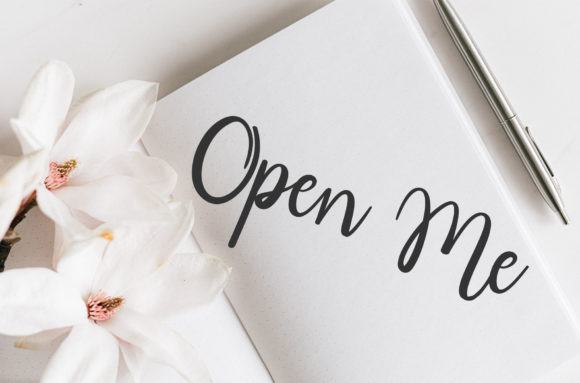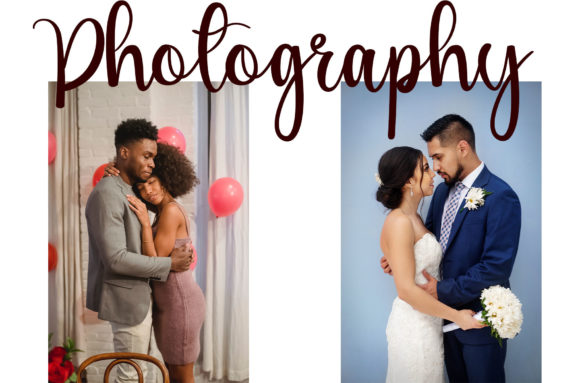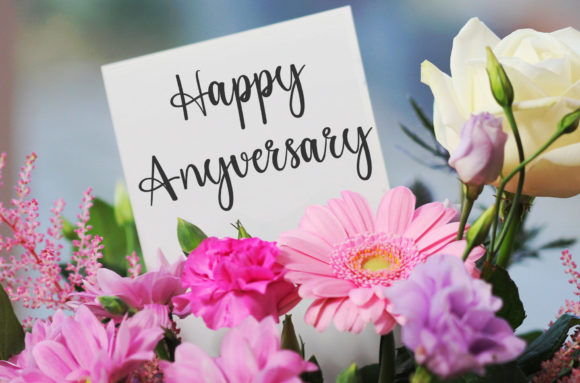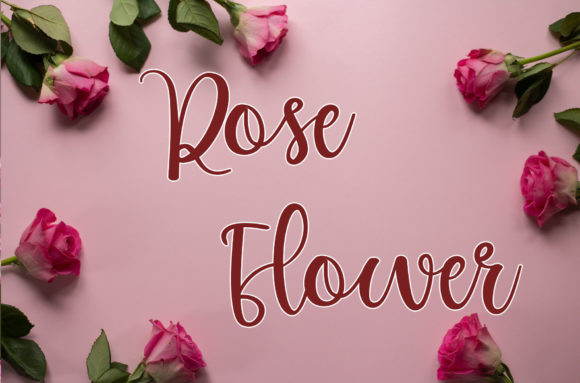
Wheat Biscuit Font
About Wheat Biscuit Font
“Wheat Biscuit” is a delightful and whimsical script font characterized by its sweet, flowing, and thin strokes. With characters that dance along the baseline, this font brings a playful and luxury touch to any design project, infusing it with a spark of charm and elegance.
The font’s thin script and graceful movements make it a versatile choice for a variety of design applications. Whether you’re working on invitations, branding, quotes, or other creative projects, “Wheat Biscuit” adds a touch of sophistication and whimsy to your typographic choices.
The playful dance of characters along the baseline gives this font a unique and lively personality, making it stand out in the realm of script fonts. It brings a sense of luxury to your designs, making them visually appealing and capturing the attention of your audience.
Incorporate “Wheat Biscuit” into your design repertoire to add a delightful and luxurious spark to your creative projects. Let its whimsical and flowing nature elevate your designs, creating a captivating visual experience for your audience.